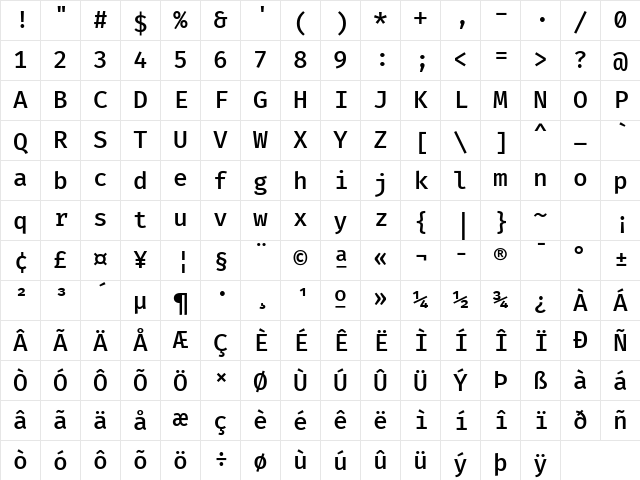
Complete FiraCode Nerd Font Mono Regular glyph index. Displaying only characters natively supported by FiraCode Nerd Font Mono Regular font.
FiraCode Nerd Font Mono uses fixed-width spacing throughout, giving it the structured, systematic character associated with coding environments and technical documentation.
Pro Tip: Use FiraCode Nerd Font Mono with slightly increased line-height for extended reading - fixed-width spacing can feel dense in longer passages without extra breathing room.